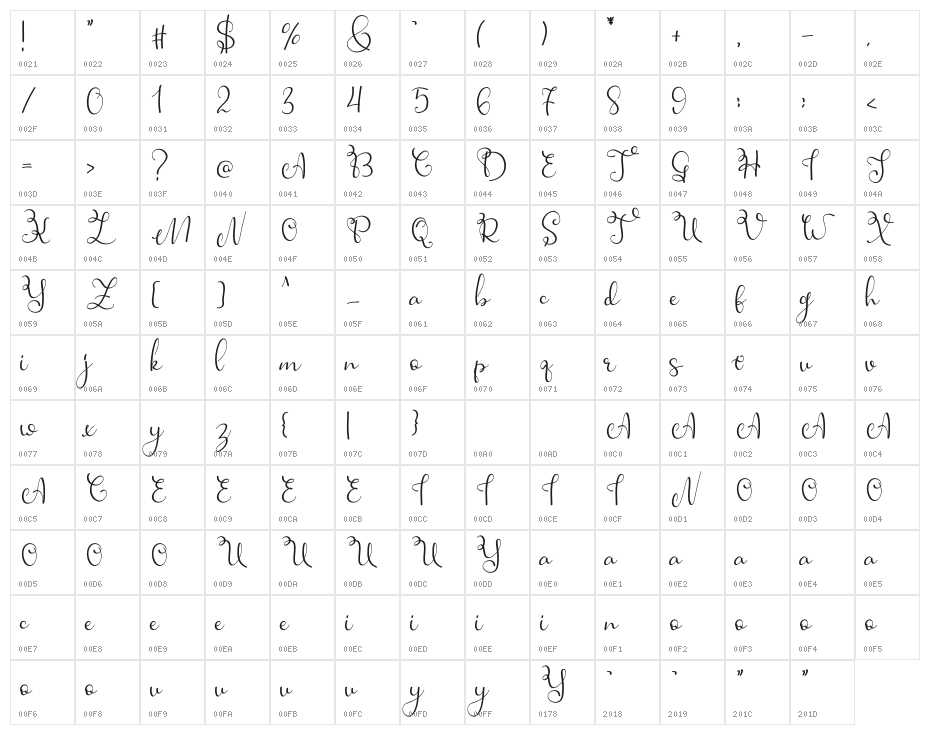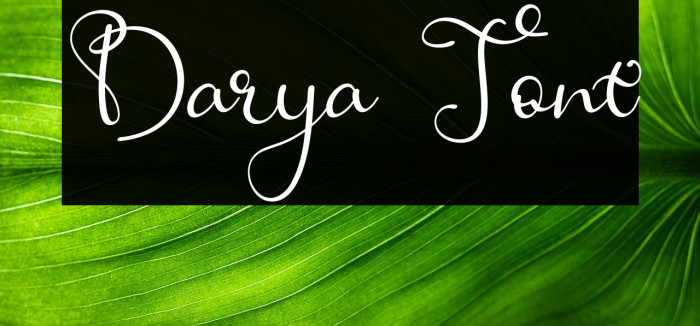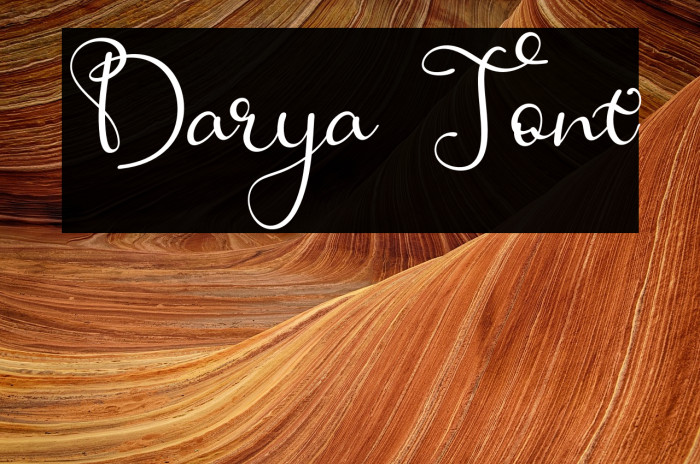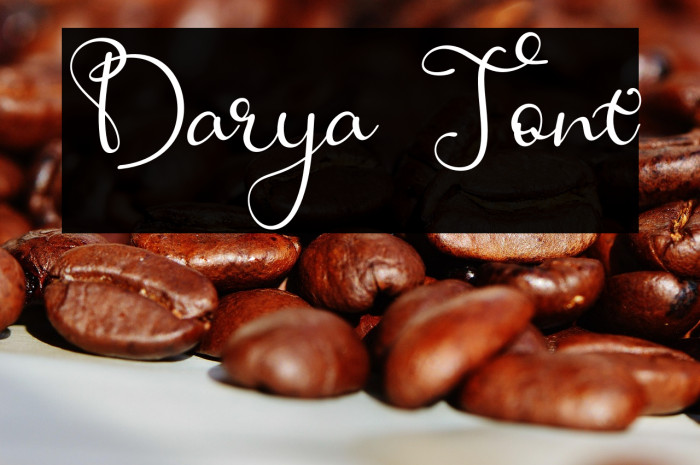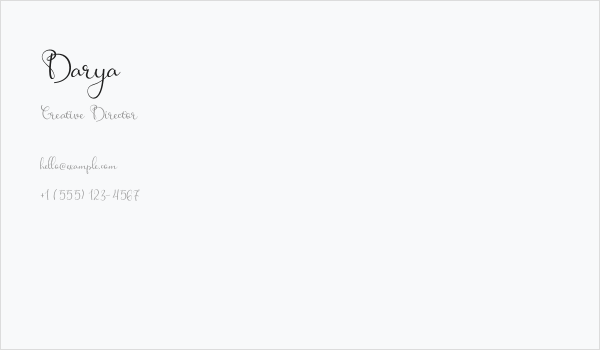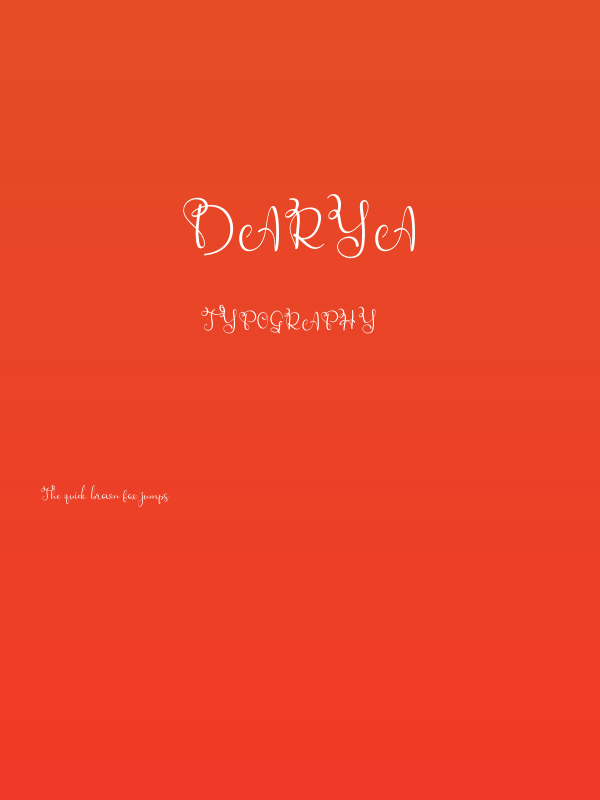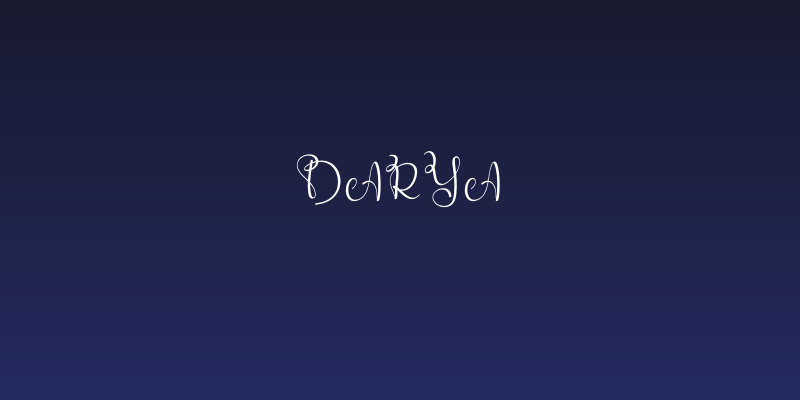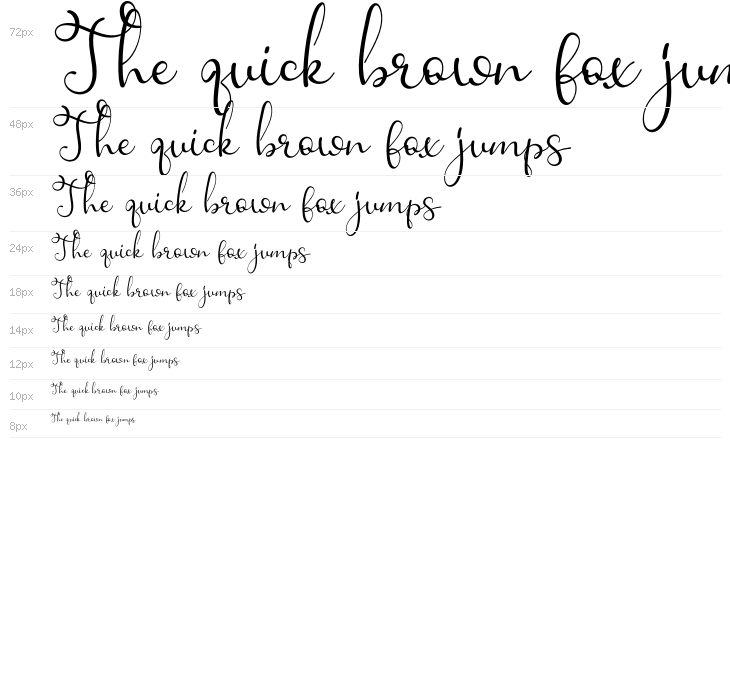
Darya Font
Darya Description
This font features an elegant and flowing script style, characterized by its intricate loops and swirls. The uppercase letters are particularly ornate, with each character displaying unique flourishes that add a sense of sophistication and artistry. The lowercase letters maintain a consistent fluidity, complementing the uppercase with their graceful curves. Numbers and special characters are designed with the same attention to detail, ensuring a cohesive look throughout. The overall appearance is both decorative and legible, making it suitable for a variety of creative applications.